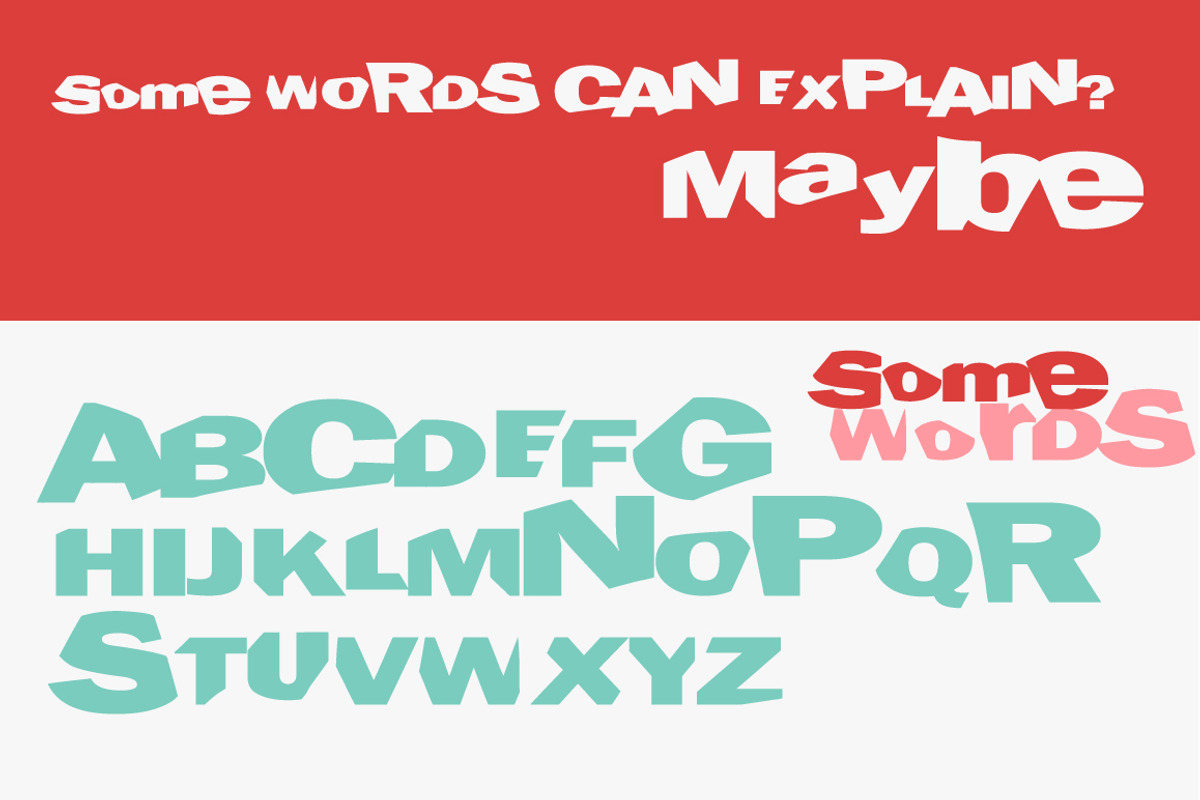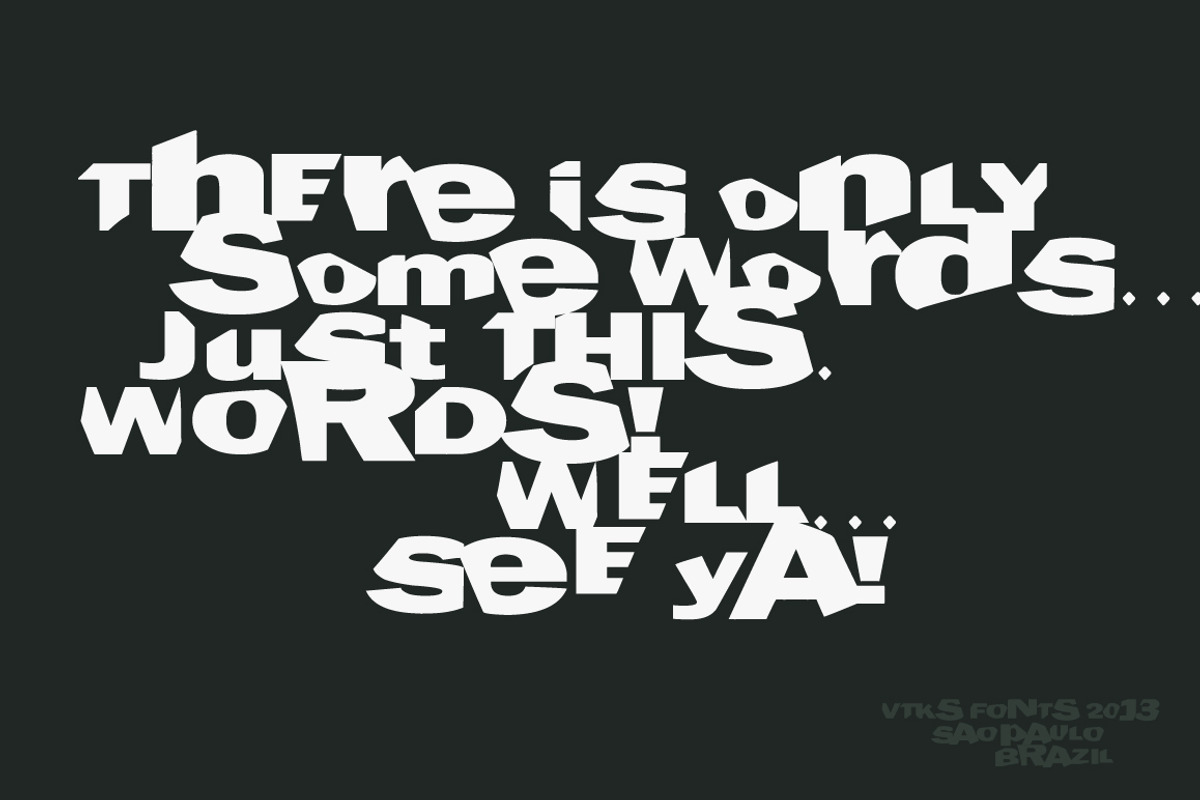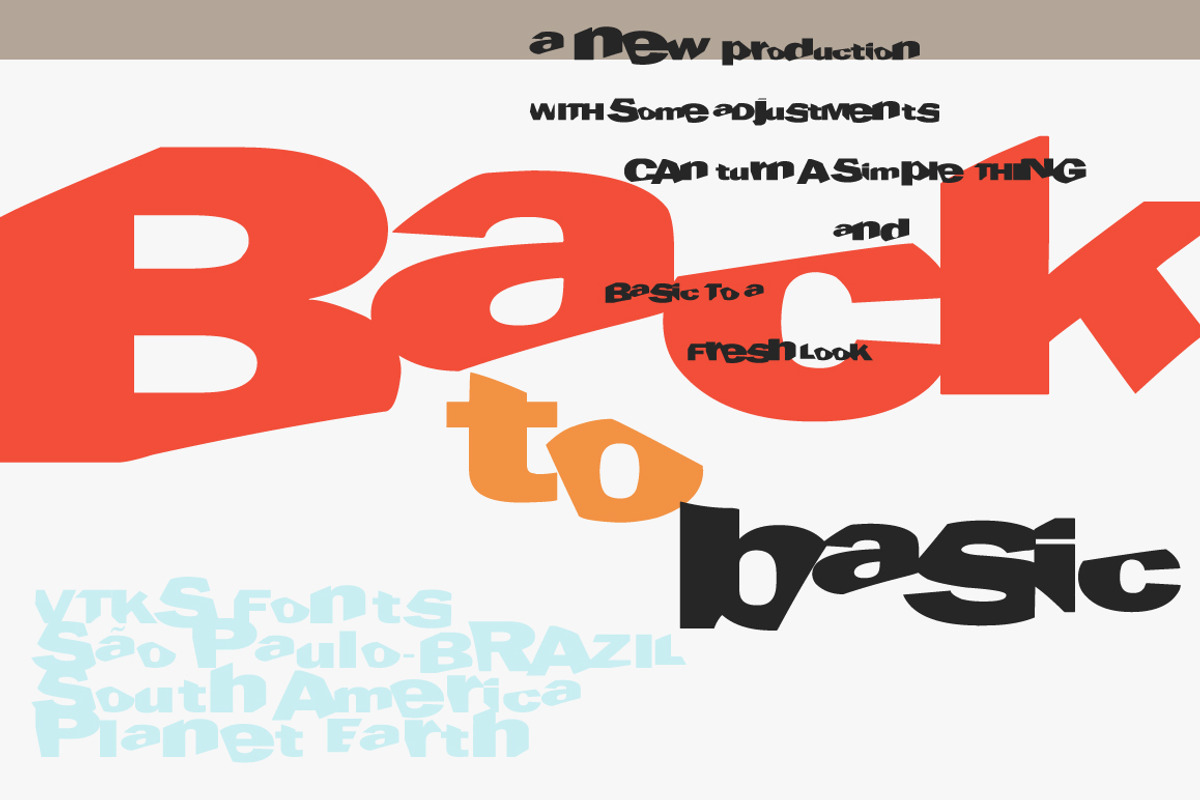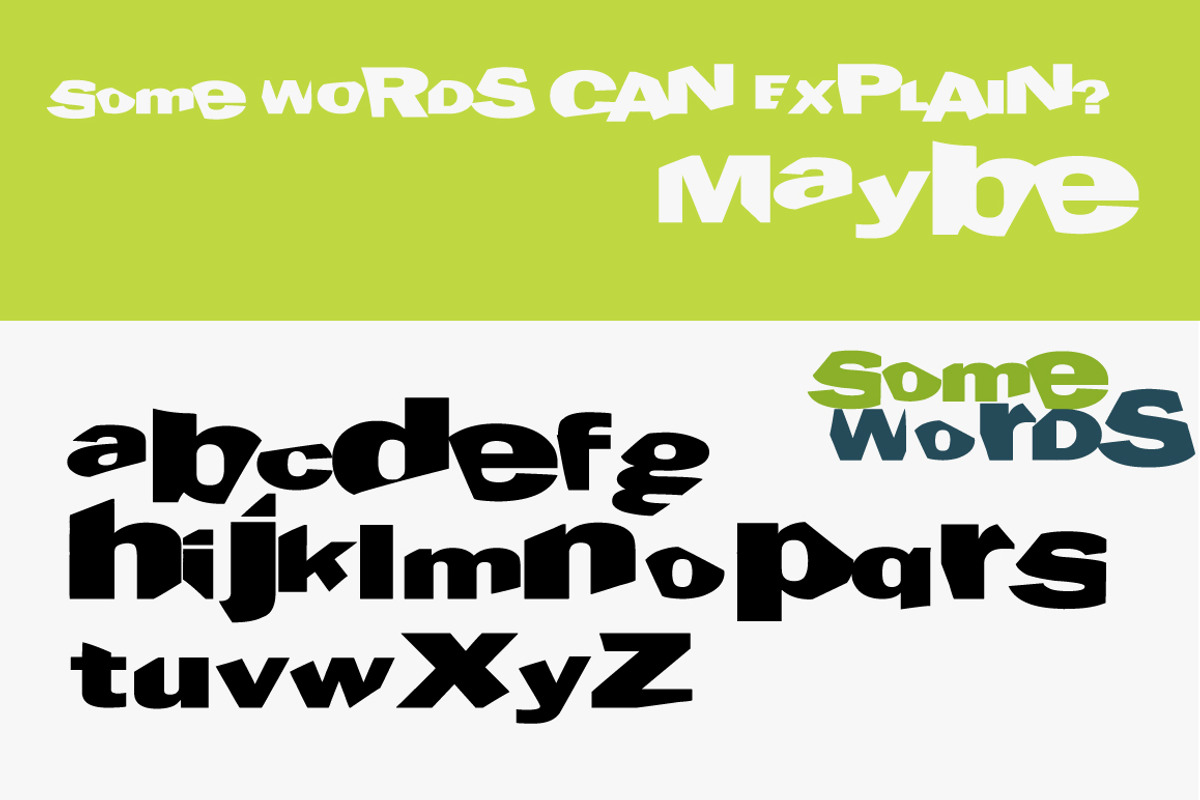
Back to basic VTKS FONT
Back to basic VTKS FONT by vtks design is a font selected for branding, posters, packaging, typography.
Why Back to basic VTKS FONT is worth a look
Back to basic VTKS FONT by vtks design fits naturally into Branding, posters, packaging, typography.